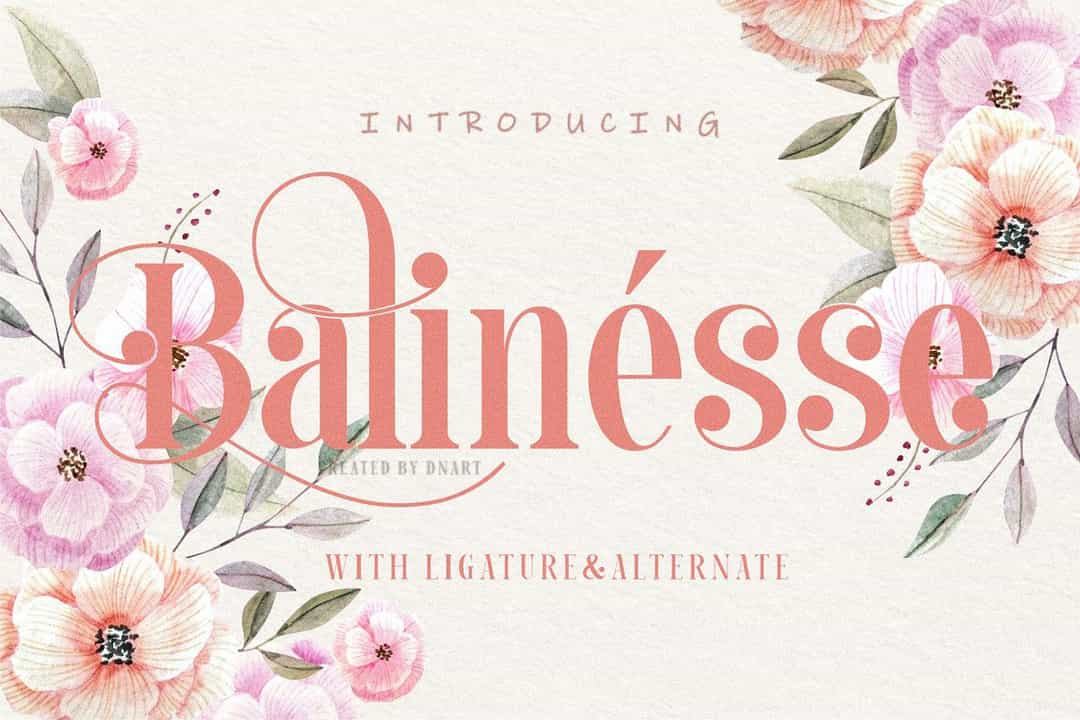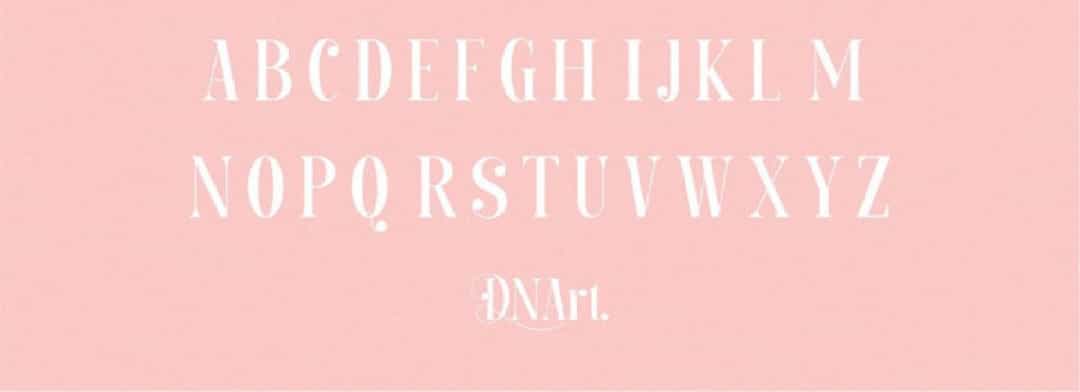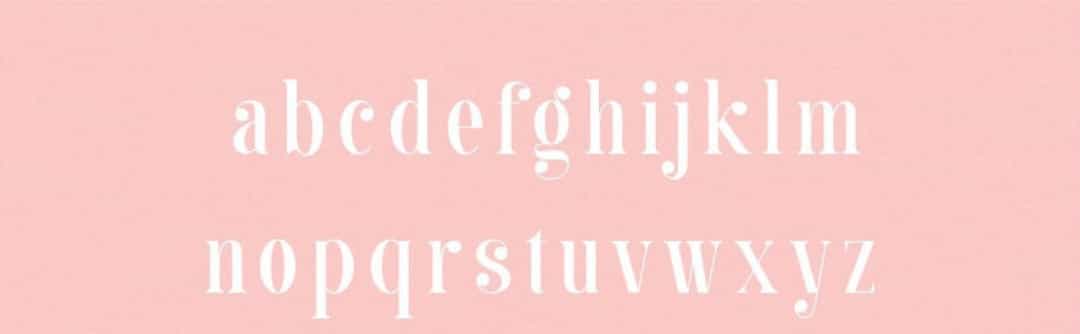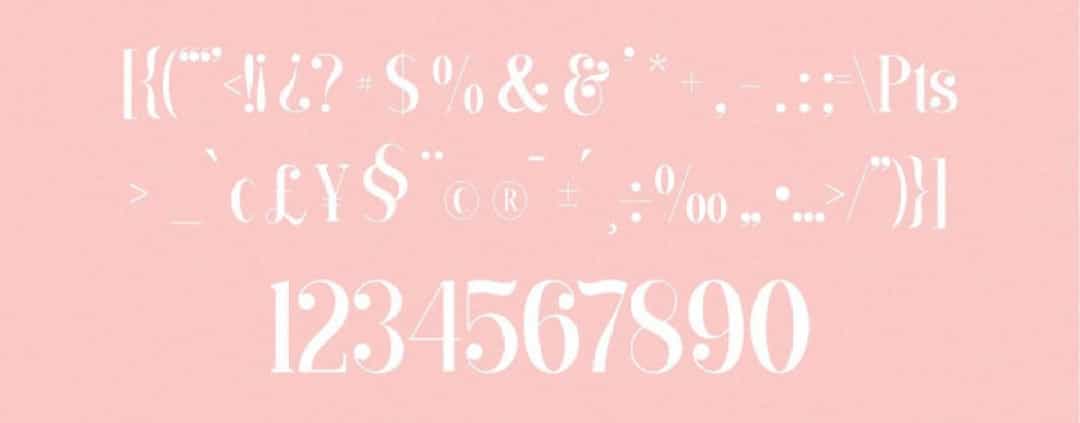
Balinesse is an exquisite serif display type. You will fall in love with its immense versatility as you apply it to creating stunning wedding invitations, stationary pieces, Instagram posts and much more!